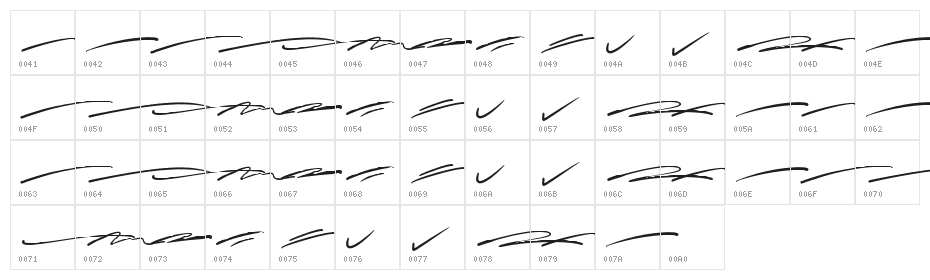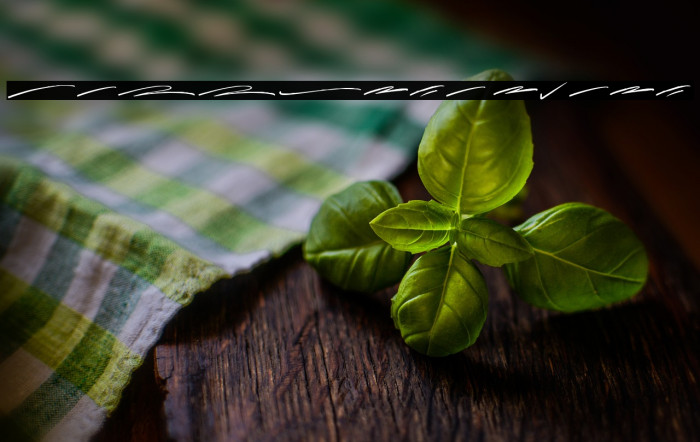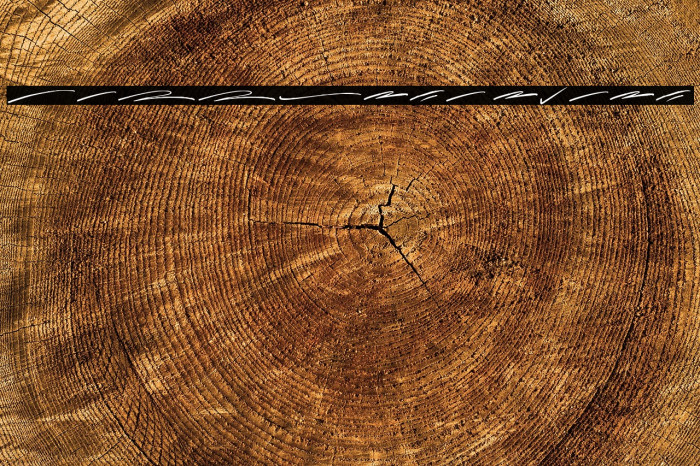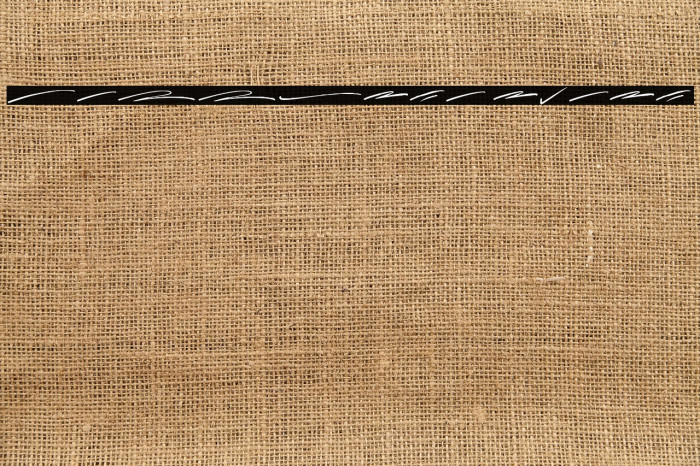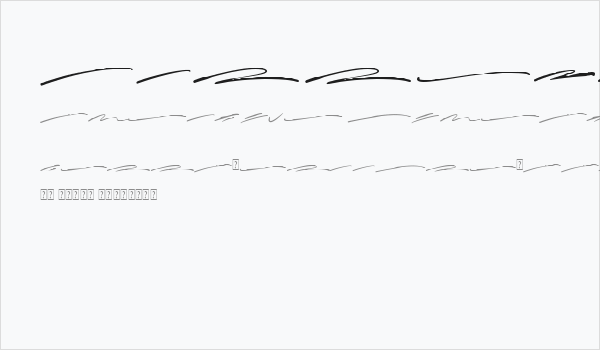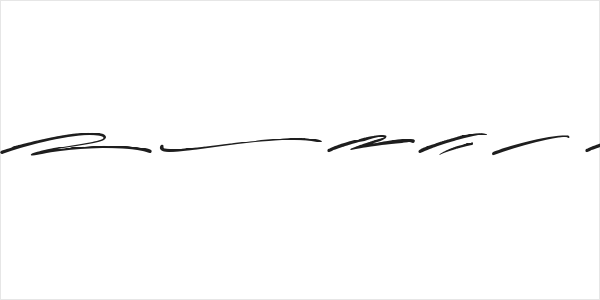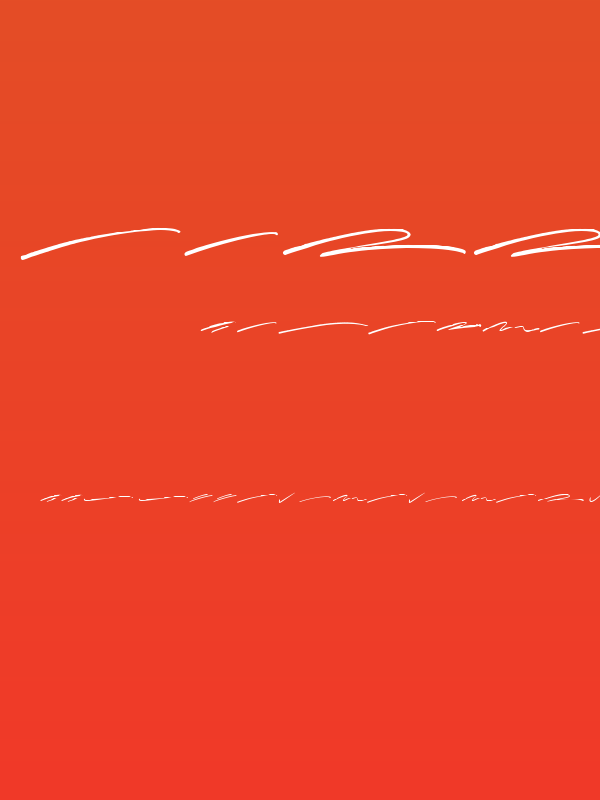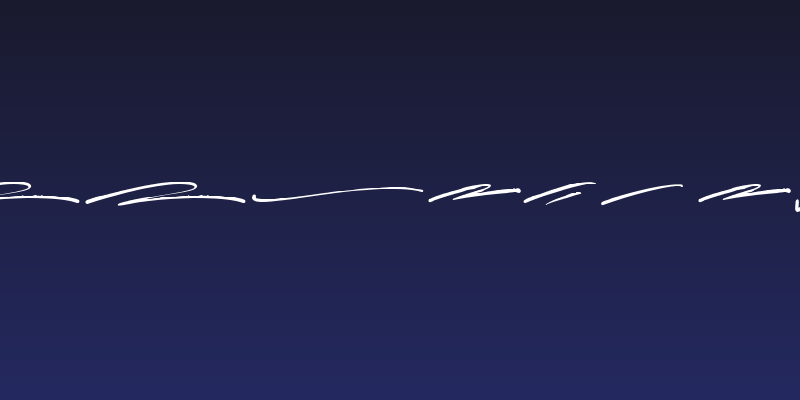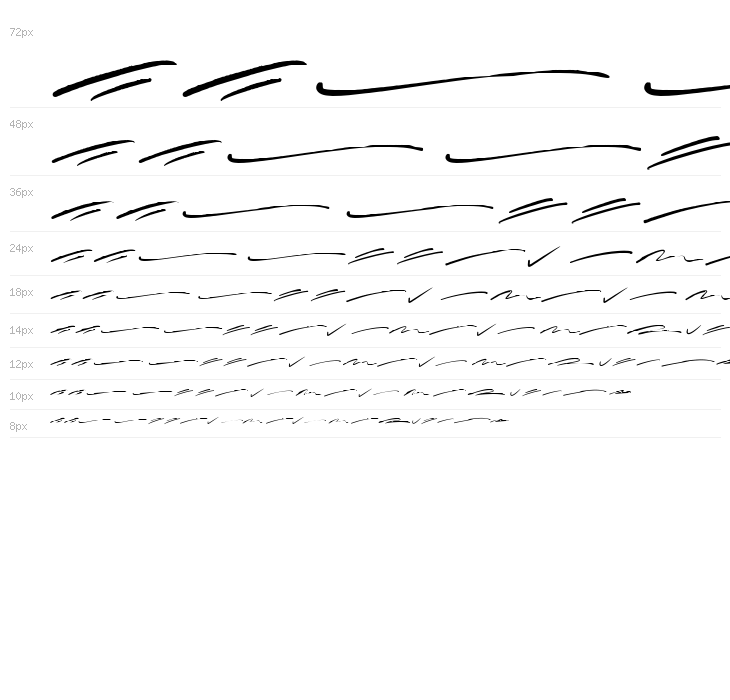
Callesta Swash Font
Callesta Swash Description
This font is characterized by its elegant and flowing script style, featuring delicate swashes and flourishes that add a touch of sophistication and grace. The letters are interconnected, creating a seamless and fluid appearance. The strokes are smooth and consistent, with a slight variation in thickness that enhances its handwritten feel. This font exudes a sense of romance and charm, making it ideal for projects that require a personal and artistic touch.
| Overall Style | Elegant and Romantic |